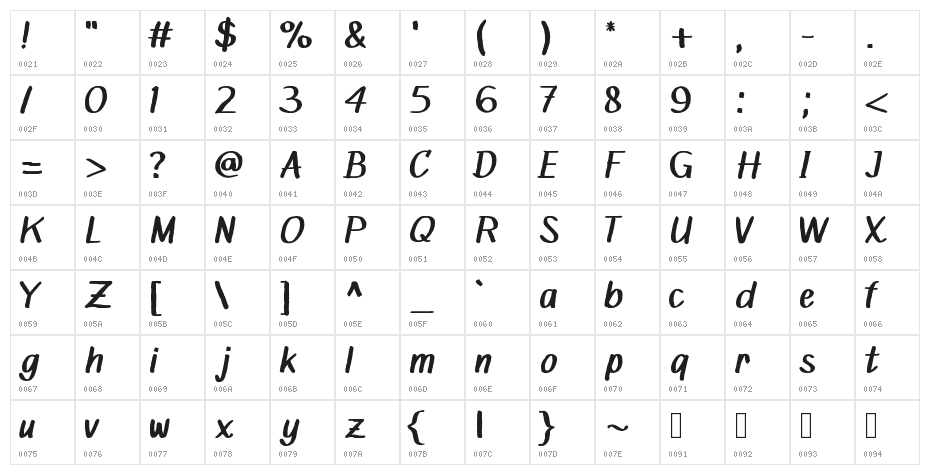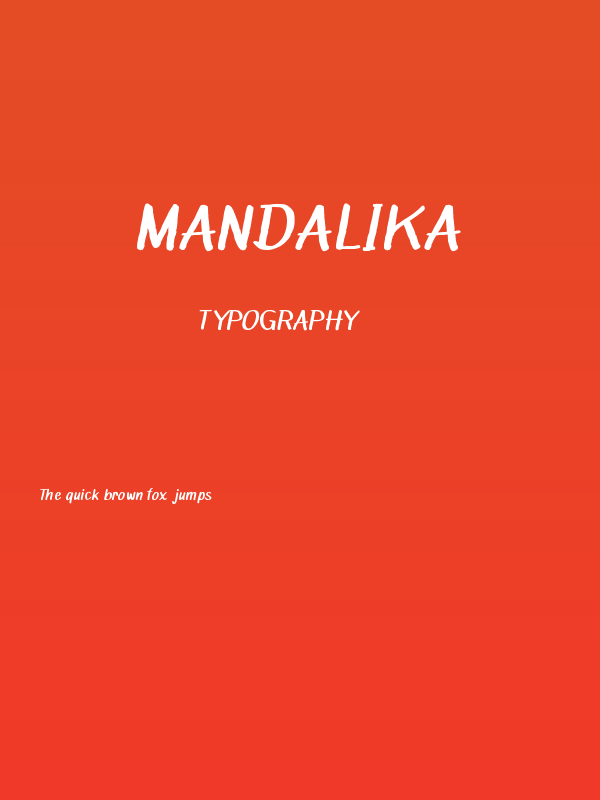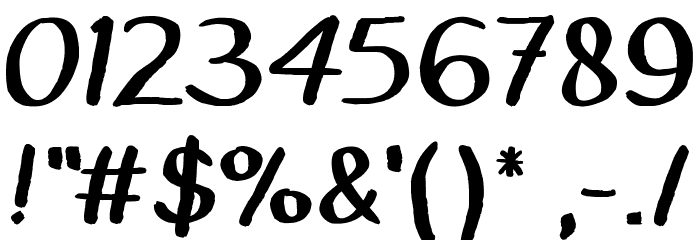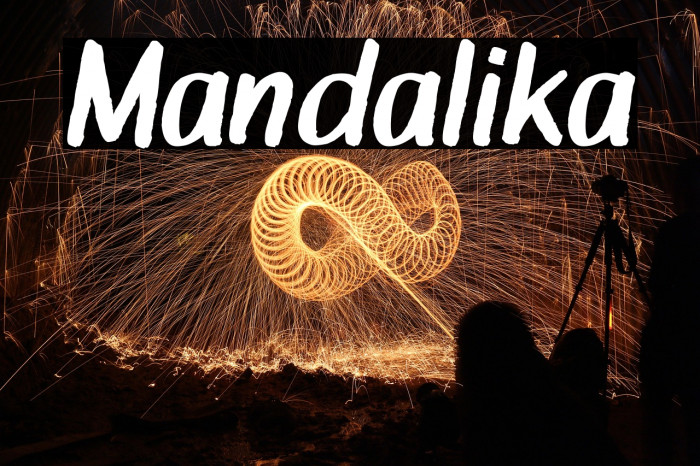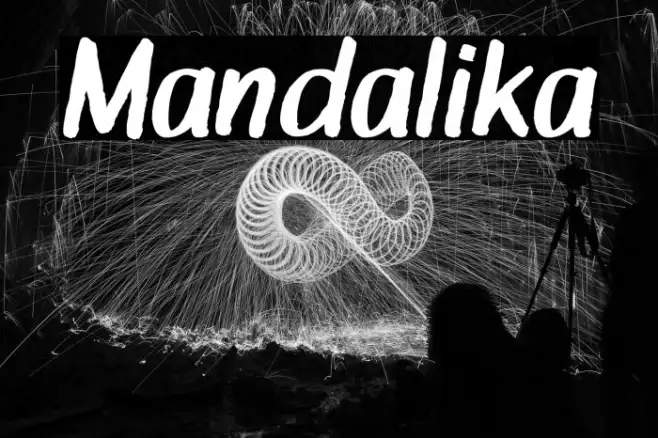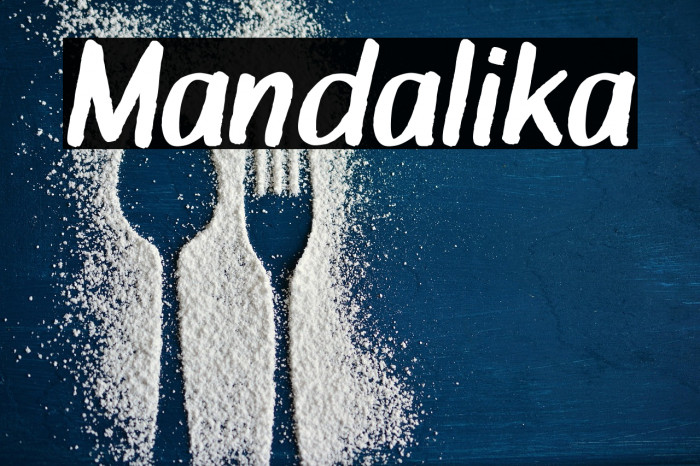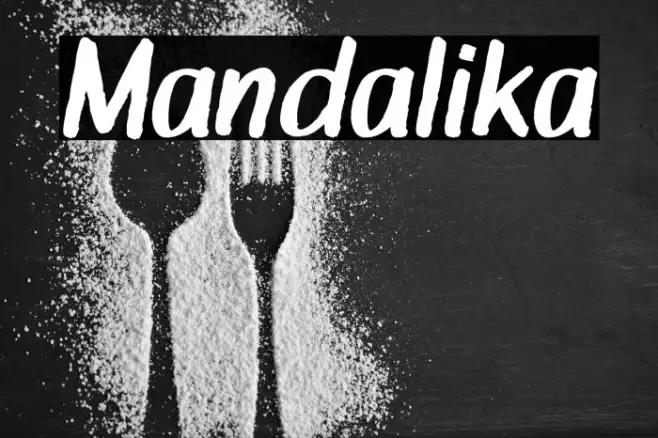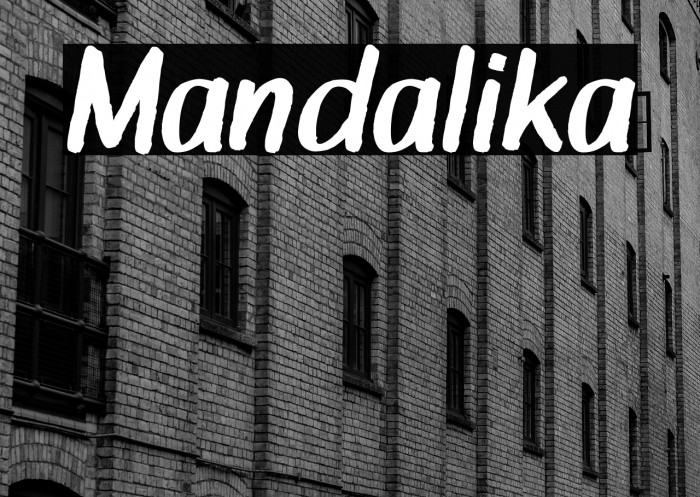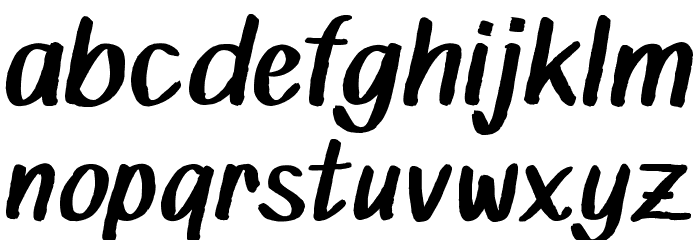
Mandalika Font
Mandalika Description
This font features a dynamic and energetic style, characterized by its handwritten appearance. The letters are slightly slanted, giving a sense of movement and fluidity. The strokes are bold and expressive, with varying thickness that adds a lively and informal touch. The uppercase letters maintain a consistent height, while the lowercase letters exhibit a playful variation in size. The numbers and special characters complement the overall style, maintaining the same bold and handwritten aesthetic. This font is ideal for projects that require a personal and approachable feel.
| Proposed Projects | Ideal for greeting cards, invitations, posters, and branding that requires a personal touch. |